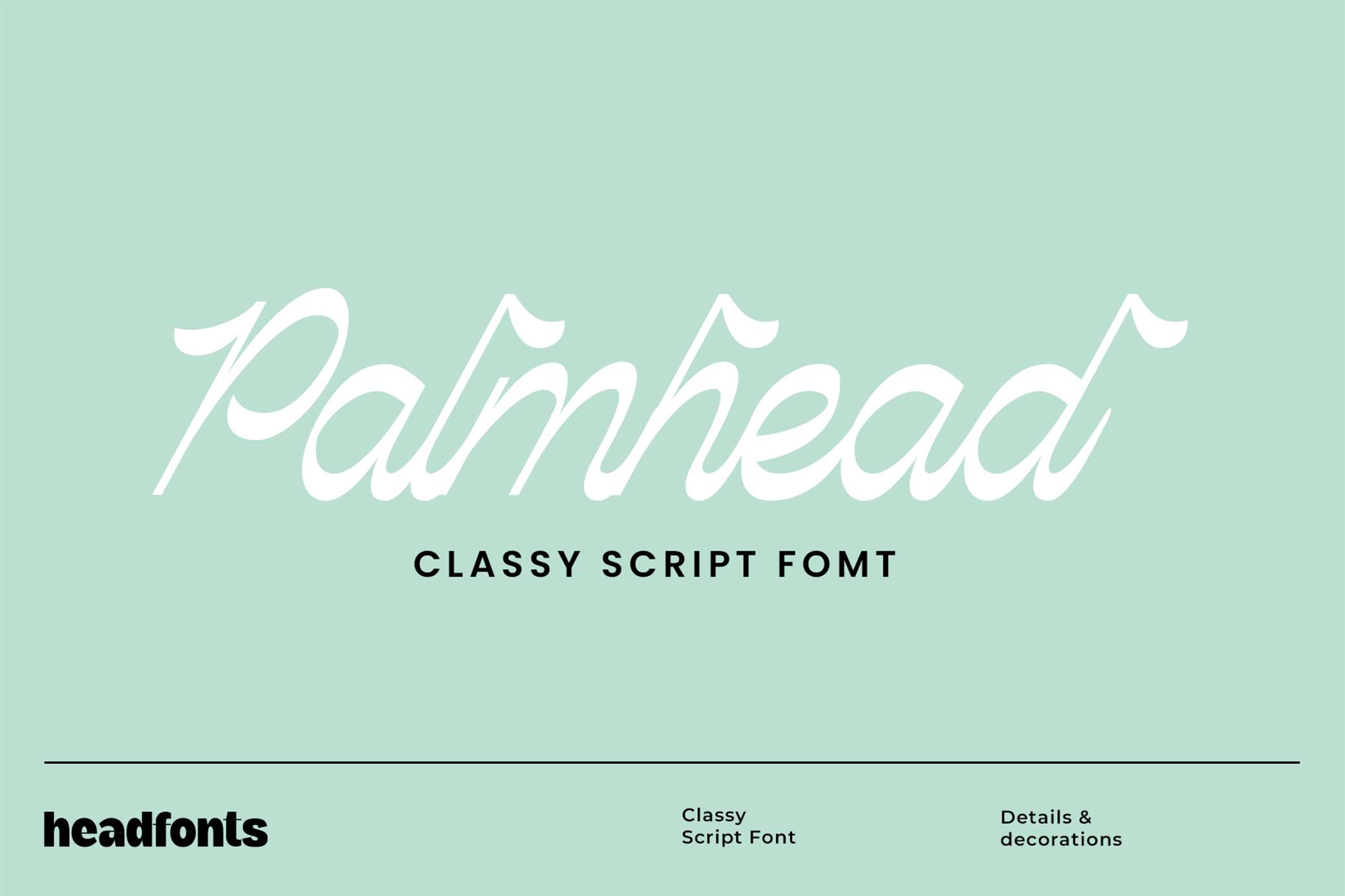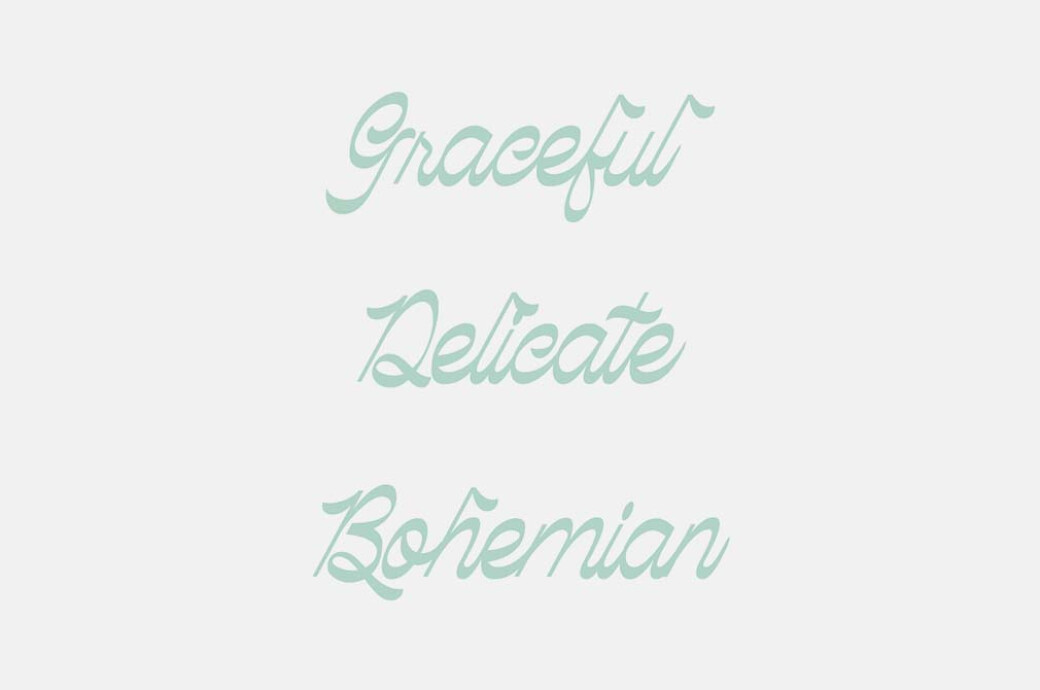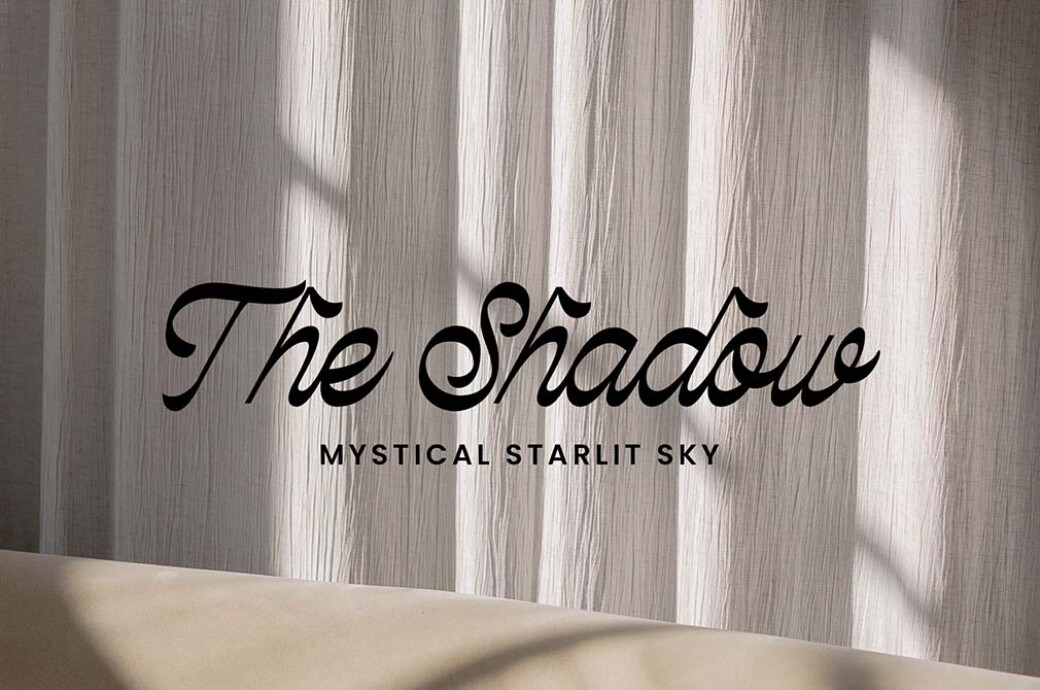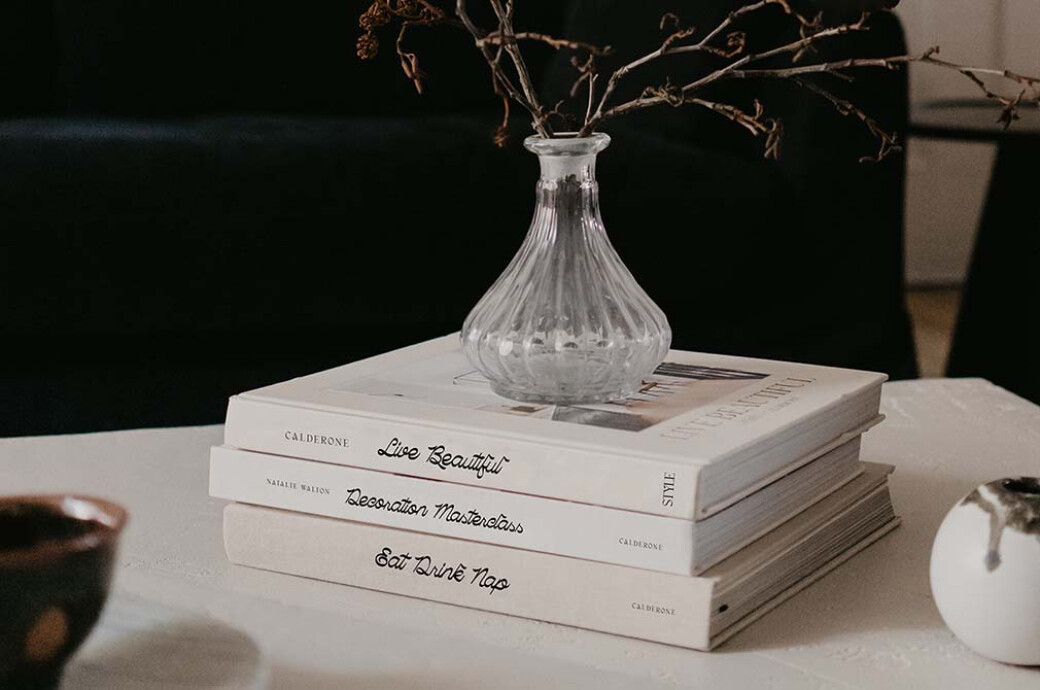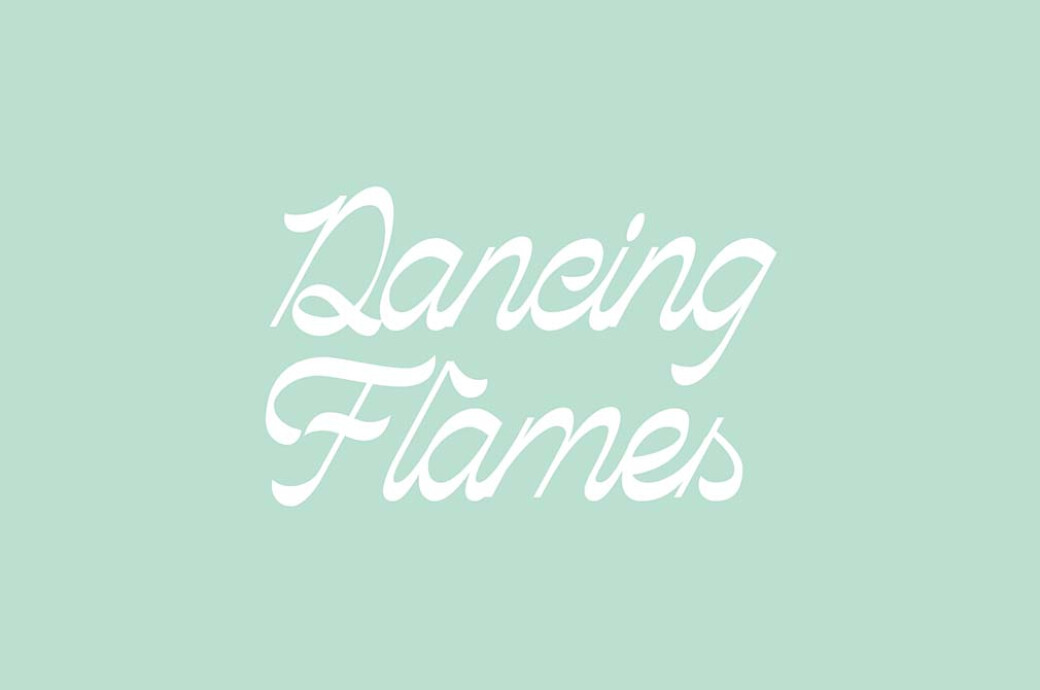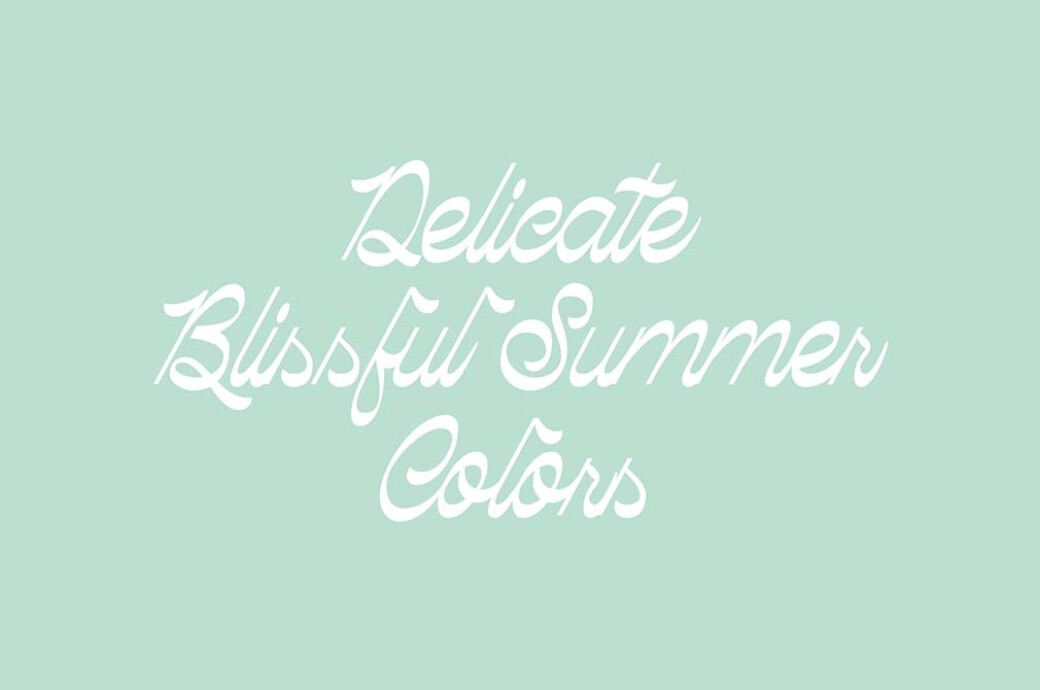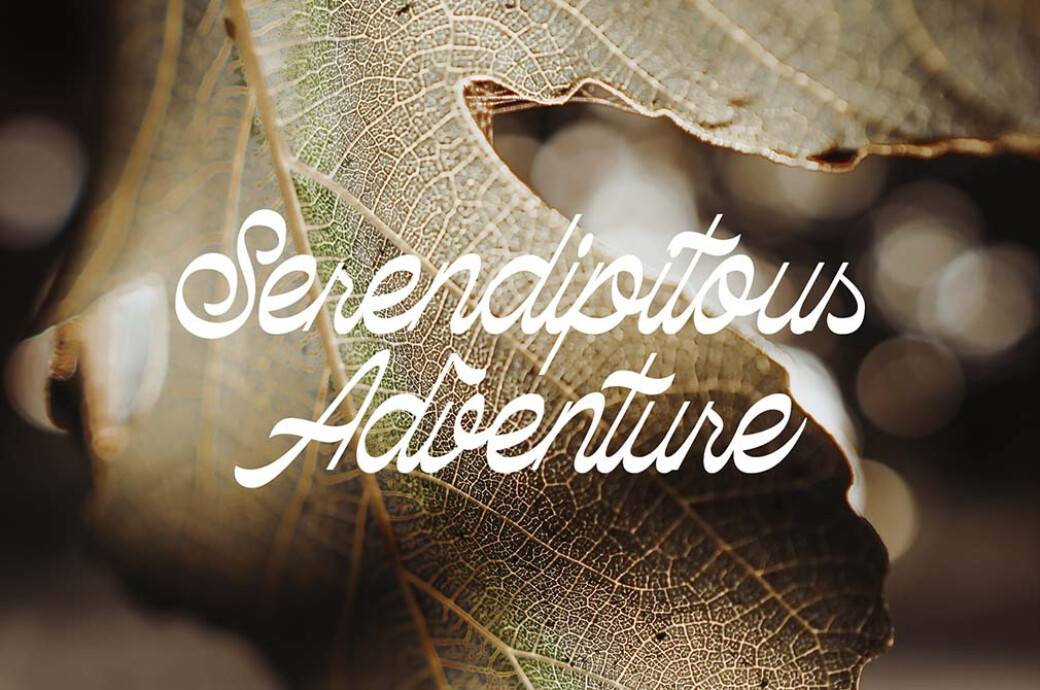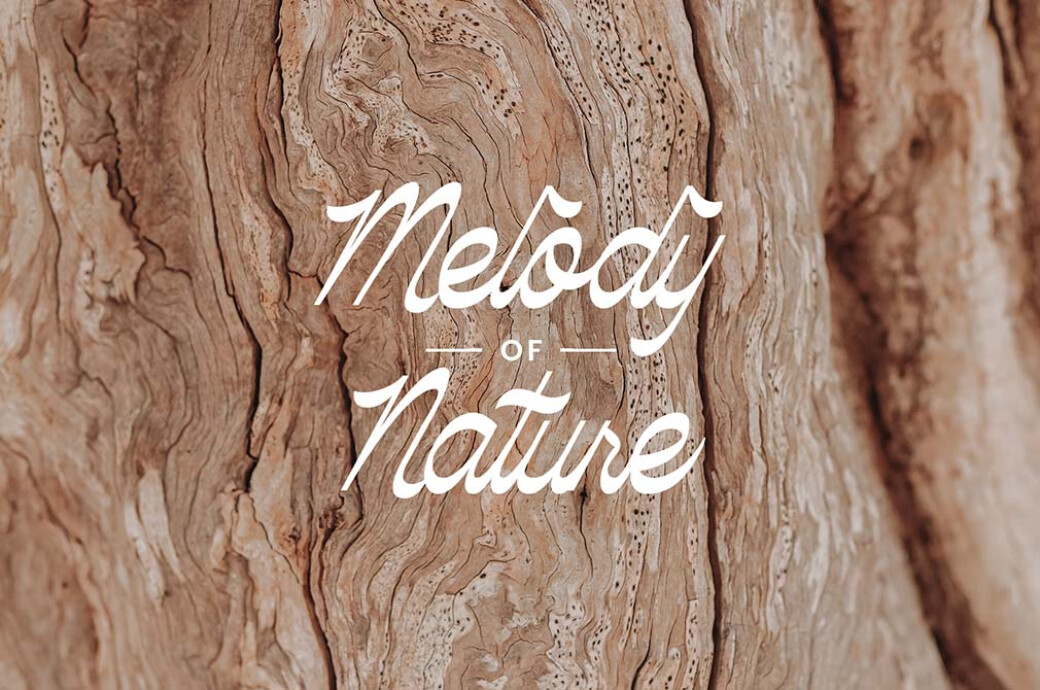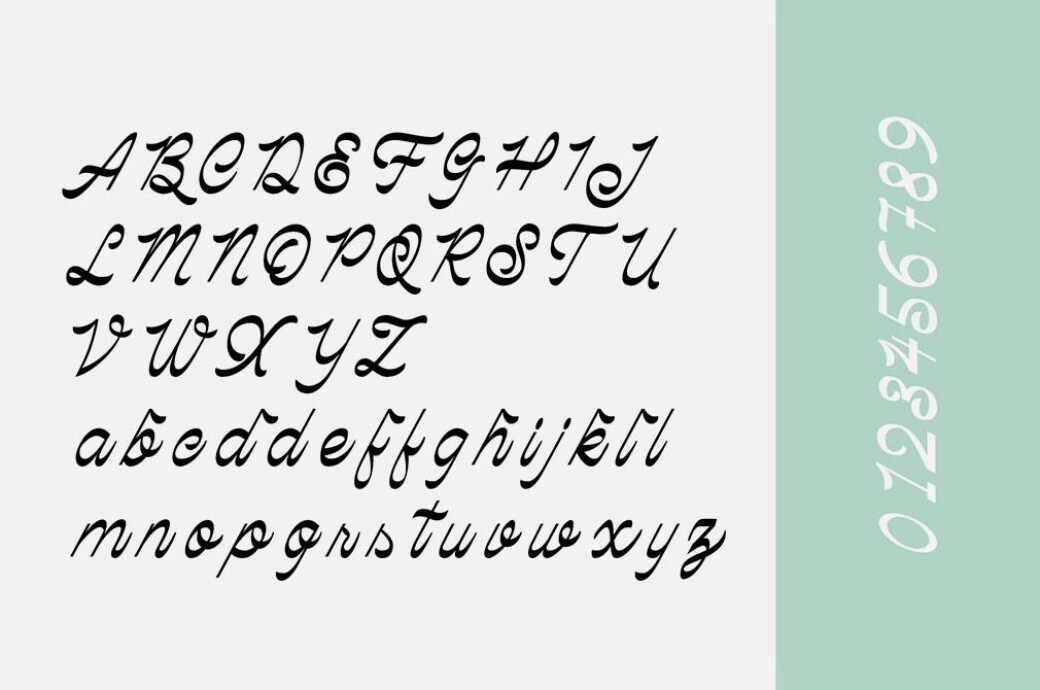
Palmhead Classy Script Font
Sometimes retro aesthetics can be too much, so you can barely combine it with other elements. However, Palmhead is a perfect balance where elegant retro meets modern classics.We're sure this beautiful script with flowing curves won't leave you cold! Palmhead draws its inspiration from the 70s typgraphy, yet it definitely doesn't feel old-school. This font comes in a single weight and includes uppercase and lowercase characters, numerals, symbols, and alternative characters. Every glyph is filled with an organic yet elegant touch that you'll like to feature in your designs. Whether you're working on branding materials for skincare products, flower shops, or wedding stationery, it will bring a touch of simplicity and sophistication.